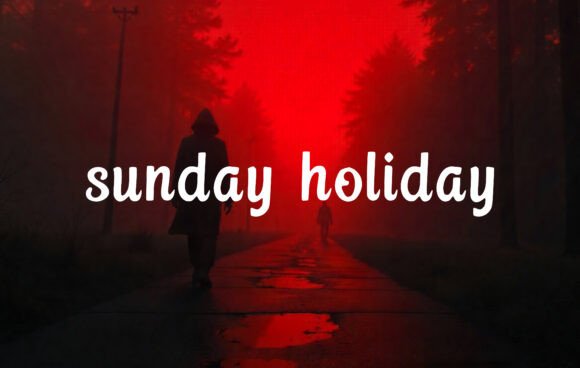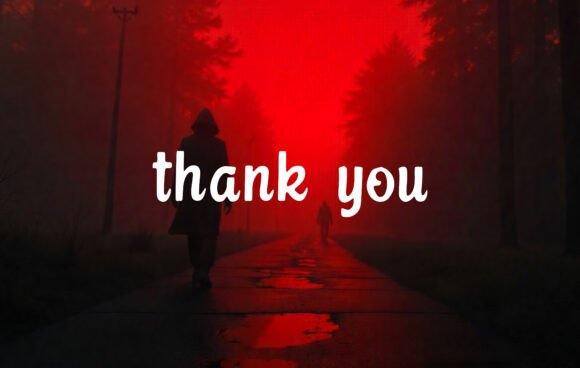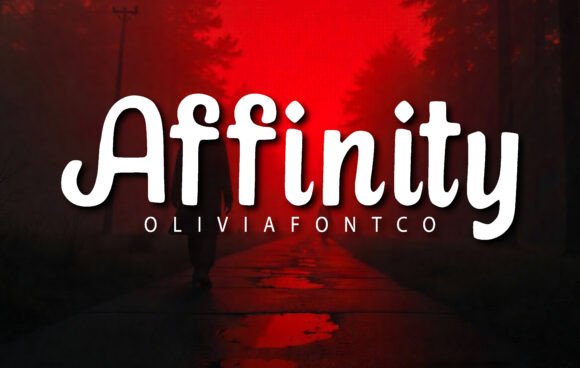
Introducing the Affinity Font: A Bold and Modern Display Script
The Affinity font is a stunning, modern display script that is sure to make a statement in any design project. With its bold, thick strokes and tight, rhythmic spacing, this font is perfect for creating eye-catching headlines, logos, and hero banners. In this article, we’ll take a closer look at the Affinity font, its unique features, and how to use it to elevate your designs.
A Unique Character
The Affinity font features a unique character that sets it apart from other display scripts. Its bold, impactful strokes are balanced by tight, rhythmic spacing, creating a sense of energy and movement. The font also boasts quirky character details, such as the playful tail on the lowercase ‘a’ and the sharp, clean dots on the ‘i’. These distinctive features give the Affinity font a “boutique” personality that is both contemporary and stylish.
Ideal for Modern Designs
The Affinity font is perfect for designers looking to create modern, stylish designs that demand attention. Its high-energy feel makes it ideal for streetwear brands, music posters, and modern digital interfaces. Whether you’re designing a logo, headline, or hero banner, the Affinity font is sure to make a statement.
Tips for Using the Affinity Font
To make the Affinity font stand out, use it in high-contrast color schemes, such as white text over a vibrant red or deep black background. This will help the font to pop and create a striking visual effect. You can also enhance its impact by applying a subtle outer glow or a long shadow to create a 3D effect.
Best Use Cases
The Affinity font is designed to be the star of the show, so it works best for short headlines, logos, or hero banners where you want to make a statement. It’s not ideal for body text or long paragraphs, as its bold, display nature can be overwhelming in large blocks of text.
Font Pairing Suggestions
To create a harmonious design, pair the Affinity font with ultra-clean, wide-spaced sans-serif fonts to act as sub-headers. This will allow the Affinity letterforms to take center stage while providing a clear and readable contrast for supporting text.
Design Inspiration
The Affinity font is perfect for designers looking to create bold, eye-catching designs that reflect the latest trends. Its modern, stylish feel makes it ideal for designs that require a high level of energy and movement. Whether you’re designing for fashion, music, or digital media, the Affinity font is sure to inspire your creativity.
In conclusion, the Affinity font is a bold, modern display script that is sure to elevate your designs. With its unique character quirks, high-energy feel, and stylish appearance, it’s perfect for creating eye-catching headlines, logos, and hero banners. By following our tips and suggestions, you can unlock the full potential of the Affinity font and create designs that demand attention.